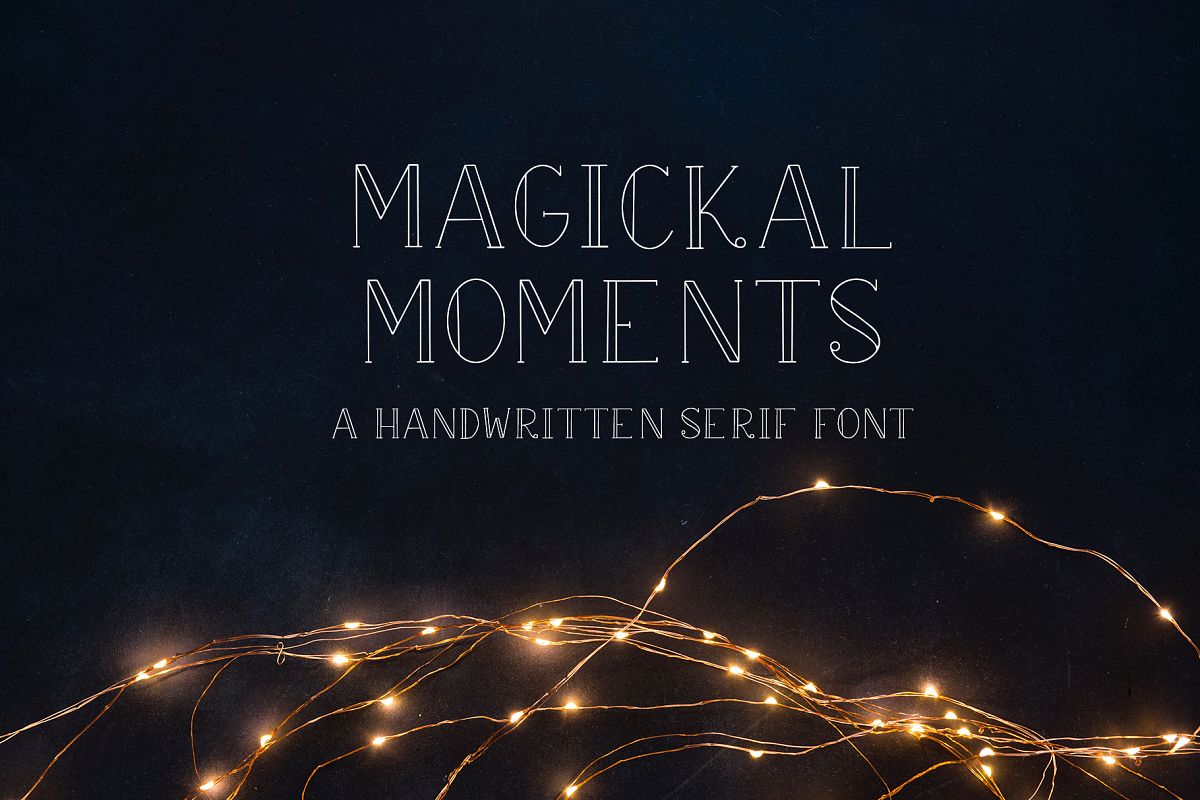
Magickal Moments
Magickal Moments font is an all caps handwritten serif font that would be great for wedding invitations, labels, mugs, print, or whatever you need. There are multilingual support, some alternates, and other fun features. This font includes a regular caps, bold caps, and symbols as a bonus.
Magickal Moments